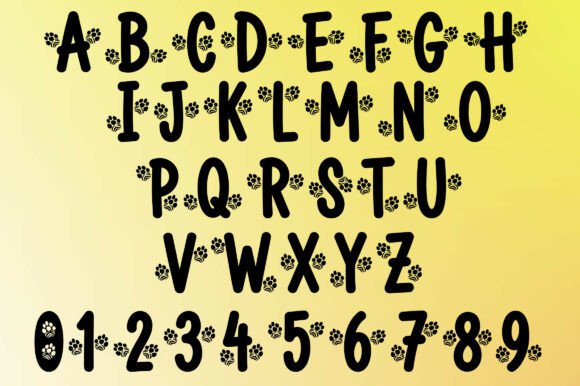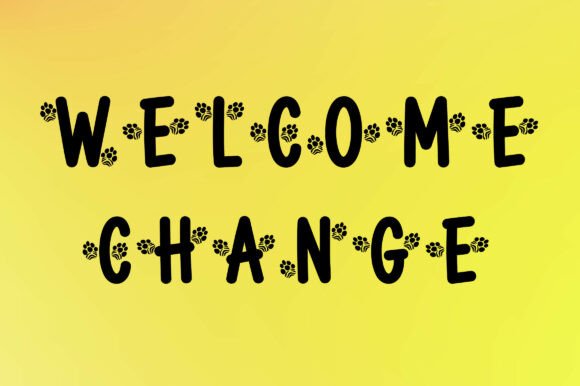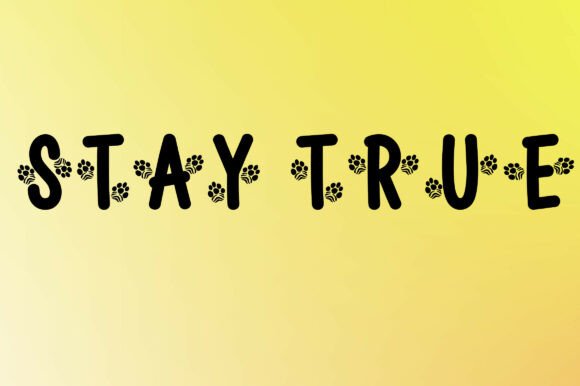
Introducing Chababa Font: The Ultimate Decorative Typeface for Creative Projects
In the world of typography, a good font can make all the difference in bringing a design to life. For designers and crafters looking for a creative and eye-catching typeface, look no further than Chababa Font. This versatile and charming font is designed to add a touch of fun and personality to any project, making it perfect for a wide range of creative applications.
What is Chababa Font?
Chababa Font is a decorative typeface that features uppercase English letters A-Z and numbers 0-9. Its unique and stylish design makes it an excellent choice for designers and crafters who want to add a personal touch to their work. Whether you’re creating a logo, poster, branding materials, packaging, invitations, social media graphics, or more, Chababa Font is the perfect choice.
Key Features of Chababa Font
- Uppercase English letters A-Z: Chababa Font features a full set of uppercase English letters, giving you endless opportunities to express your creativity.
- Numbers 0-9: In addition to letters, Chababa Font also includes numbers 0-9, making it perfect for creating numerical designs.
- Decorative and eye-catching design: Chababa Font’s unique design makes it stand out from other typefaces, adding a touch of charm and personality to any project.
- Versatile style: Chababa Font’s versatile style makes it suitable for a wide range of creative applications, from logos and posters to social media graphics and more.
Creative Applications of Chababa Font
Chababa Font’s versatility makes it perfect for a wide range of creative applications, including:
- Logos: Create a unique and memorable logo for your brand with Chababa Font.
- Posters: Add a touch of charm and personality to your posters with Chababa Font.
- Branding: Use Chababa Font to create consistent and recognizable branding materials.
- Packaging: Add a personal touch to your packaging designs with Chababa Font.
- Invitations: Create beautiful and unique invitations with Chababa Font.
- Social media graphics: Use Chababa Font to create eye-catching social media graphics that stand out from the crowd.
Why Choose Chababa Font?
With so many typefaces available, why choose Chababa Font? Here are just a few reasons:
- Unique design: Chababa Font’s unique design makes it stand out from other typefaces.
- Versatility: Chababa Font’s versatile style makes it suitable for a wide range of creative applications.
- Endless creative possibilities: With Chababa Font, the creative possibilities are endless.
In conclusion, Chababa Font is a creative and eye-catching typeface designed to bring charm, fun, and personality to any project. Its versatile style makes it perfect for a wide range of creative applications, from logos and posters to social media graphics and more. With its unique design, versatility, and ease of use, Chababa Font is the perfect choice for designers and crafters looking to add a personal touch to their work.